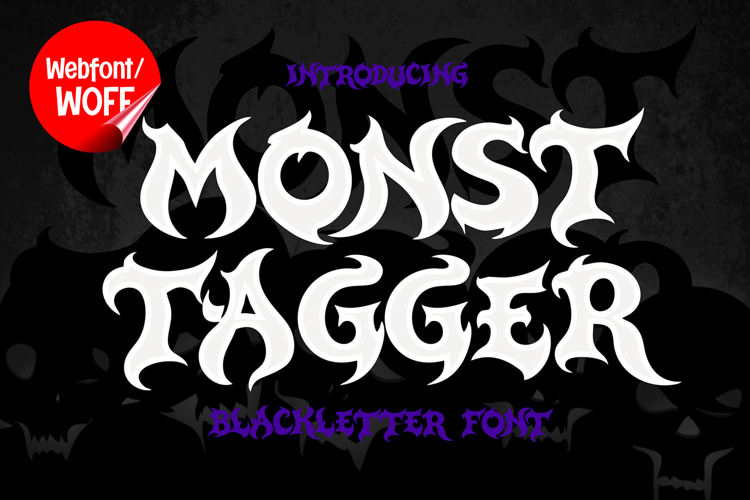
Monsttager | Webfont Gothic Blackletter for Websites
Monsttager Webfont is a bold and dramatic blackletter typeface designed to bring gothic character into digital environments. Inspired by traditional calligraphy and modern display typography, this font delivers a powerful visual presence that enhances website design with strong identity and style.
Typography is a crucial element in web design, especially when it comes to creating memorable user experiences. Monsttager is crafted as a display webfont, making it ideal for headlines, hero sections, landing pages, banners, and promotional content. Its sharp and bold letterforms ensure that key messages stand out clearly.
The font includes uppercase characters with structured and detailed forms. Numbers and punctuation are also included, designed to match the gothic aesthetic. With multilingual support, Monsttager can be used across different languages, making it suitable for global digital projects.
This font is ideal for creative websites, music platforms, streetwear brands, portfolios, and editorial designs. Its bold blackletter style helps create a strong visual identity and adds character to digital content.
One of the key strengths of Monsttager in web design is its ability to function as a focal point. When used in headlines, it draws attention and enhances visual hierarchy. This makes it effective for call-to-action sections and featured content.
Despite its decorative style, Monsttager maintains readability at display sizes. Designers can pair it with clean fonts for body text to create balance and improve user experience.
The gothic style adds depth and intensity to web layouts. When combined with modern design elements such as animations or transitions, the font creates a more engaging and immersive experience.
Overall, Monsttager Webfont transforms typography into a bold visual statement. It brings the richness of blackletter design into the digital world, helping websites stand out and communicate strong identity.